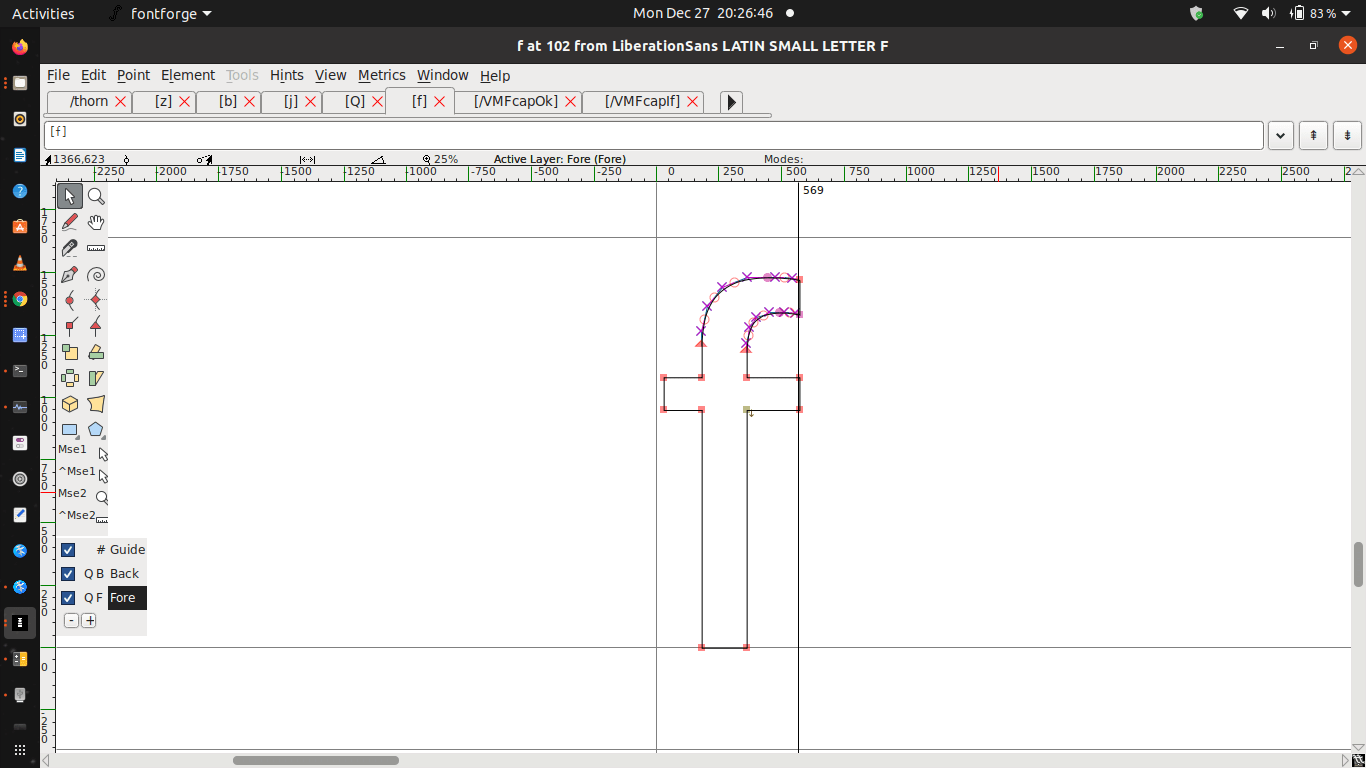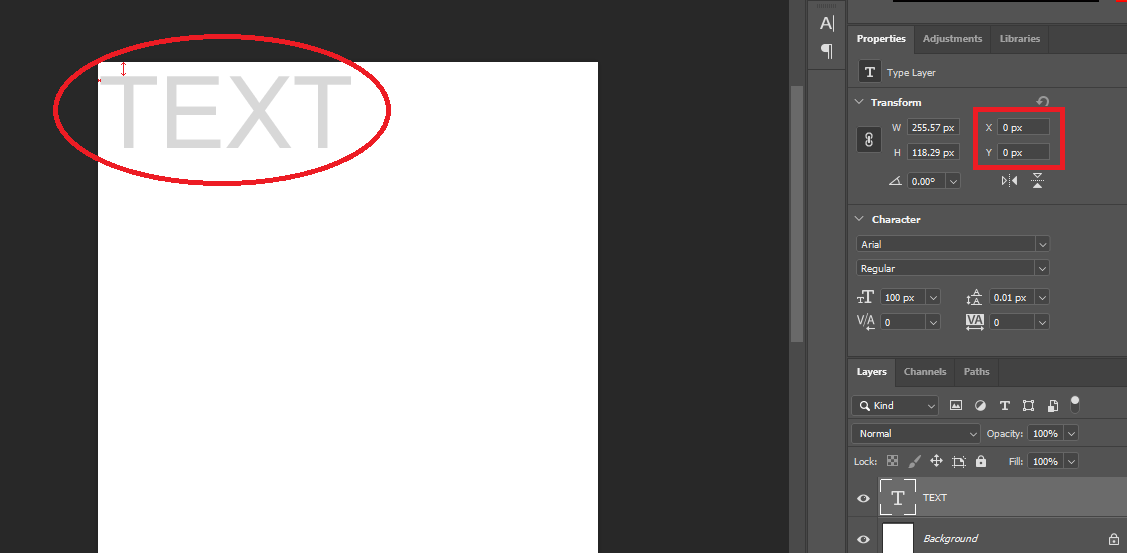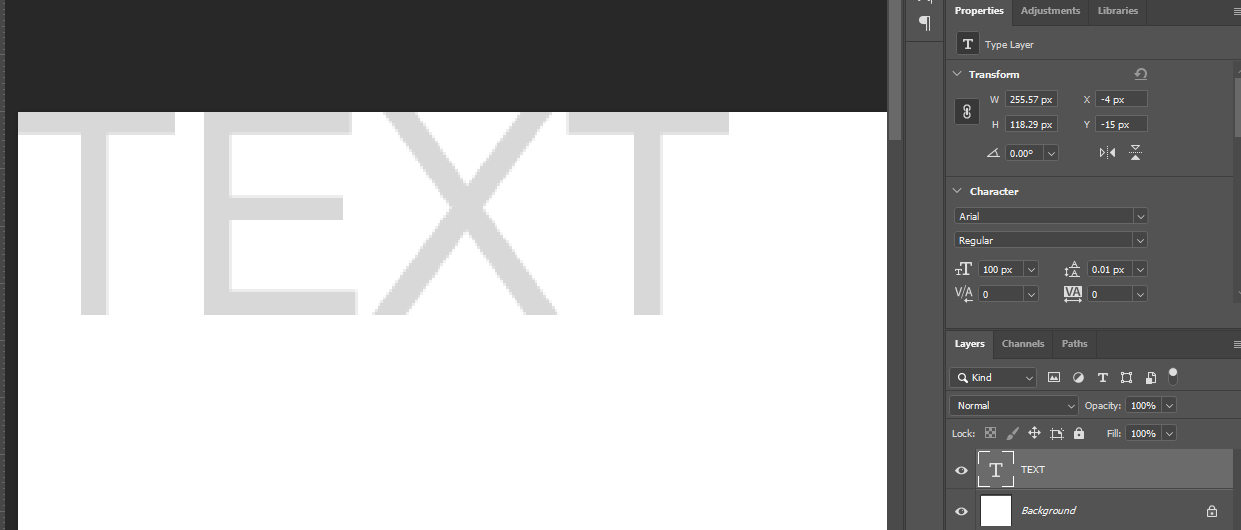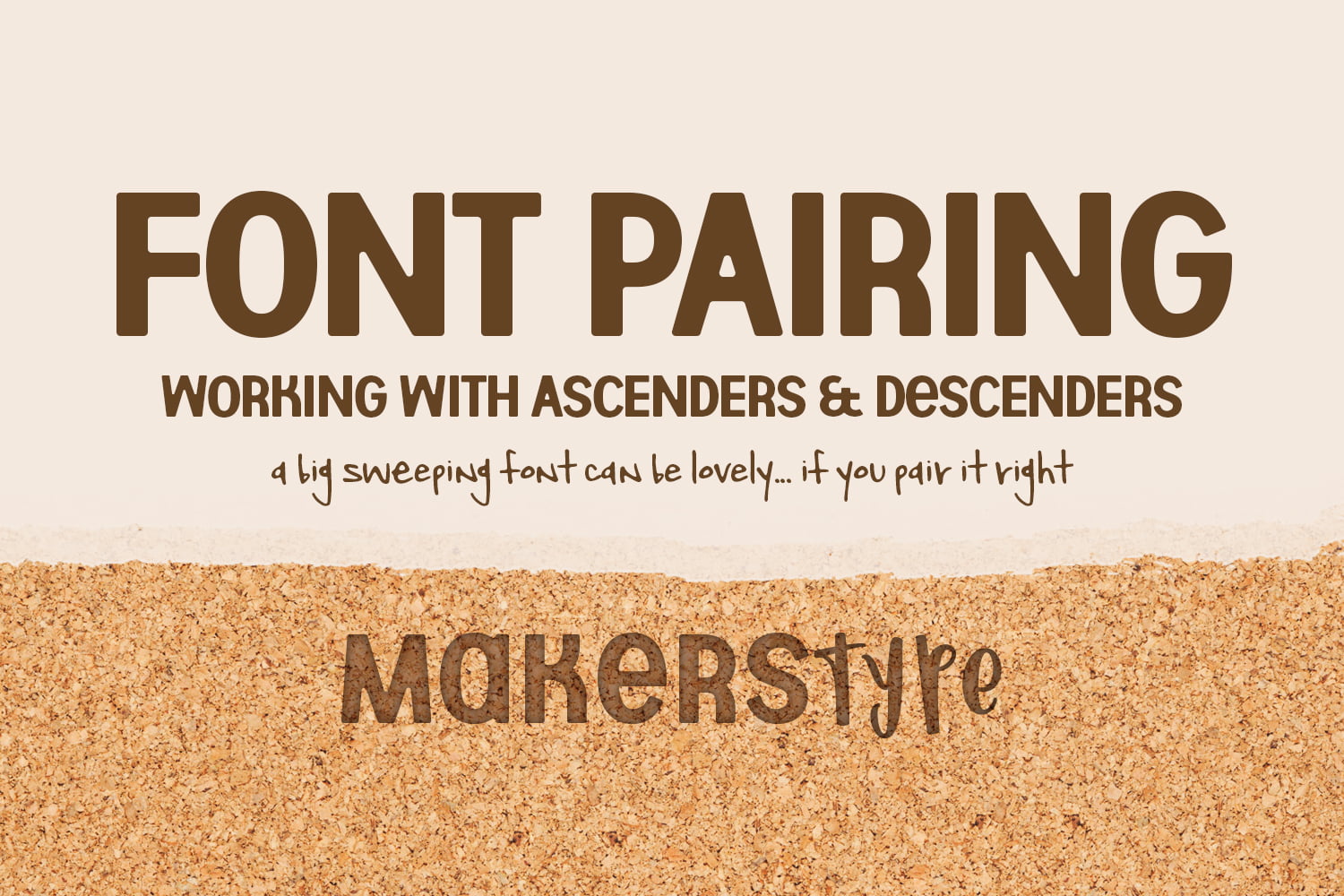
Ascenders And Descenders Fonts . In this article, you’ll dive deep into the anatomy of these typographic parts, learning how they influence font metrics and text formatting. There’s no real battle between ascender vs descender elements in the world of branding and design. For a better understanding, always keep in mind letters such as ‘p’, ‘q’ or. They tend to be readable and efficient for short space. A descender is the lower part of the letter that extends below the baseline of a particular font. Traditionally, fonts with no descenders are great for designing logos or headlines. By the end, you’ll not only understand what. Keep in mind when choosing a font for a body of text that the ascenders and descenders interact harmoniously.
In this article, you’ll dive deep into the anatomy of these typographic parts, learning how they influence font metrics and text formatting. Keep in mind when choosing a font for a body of text that the ascenders and descenders interact harmoniously. A descender is the lower part of the letter that extends below the baseline of a particular font. They tend to be readable and efficient for short space. For a better understanding, always keep in mind letters such as ‘p’, ‘q’ or. Traditionally, fonts with no descenders are great for designing logos or headlines. There’s no real battle between ascender vs descender elements in the world of branding and design. By the end, you’ll not only understand what.
Ascenders And Descenders Fonts A descender is the lower part of the letter that extends below the baseline of a particular font. A descender is the lower part of the letter that extends below the baseline of a particular font. Keep in mind when choosing a font for a body of text that the ascenders and descenders interact harmoniously. In this article, you’ll dive deep into the anatomy of these typographic parts, learning how they influence font metrics and text formatting. By the end, you’ll not only understand what. Traditionally, fonts with no descenders are great for designing logos or headlines. There’s no real battle between ascender vs descender elements in the world of branding and design. For a better understanding, always keep in mind letters such as ‘p’, ‘q’ or. They tend to be readable and efficient for short space.